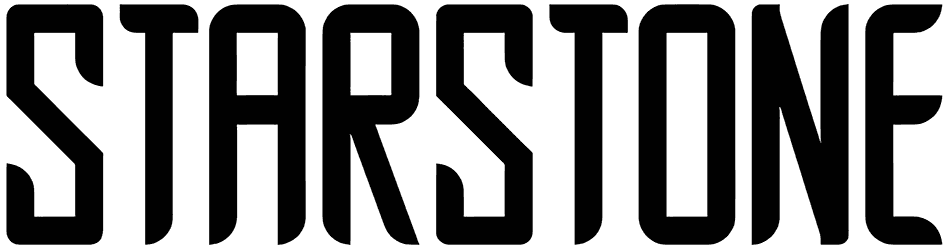
AL LePorsche Font
Becoming very popular among modern lovers AL LePorsche is a dynamic sans serif font that looks quite modern with slim yet tall and powerful lettering.
A Font by Aluyeah Studio
Designed by: Aluyeah Studio